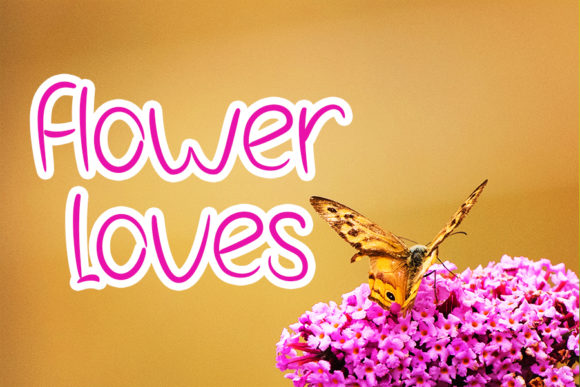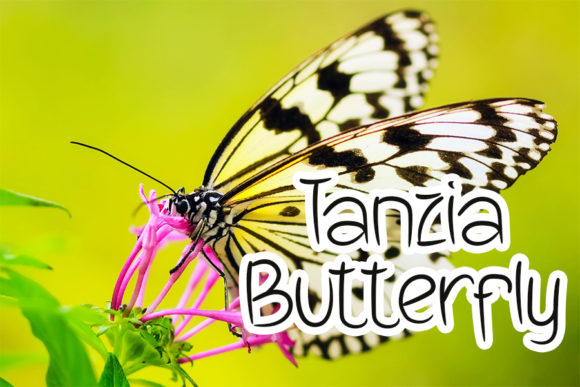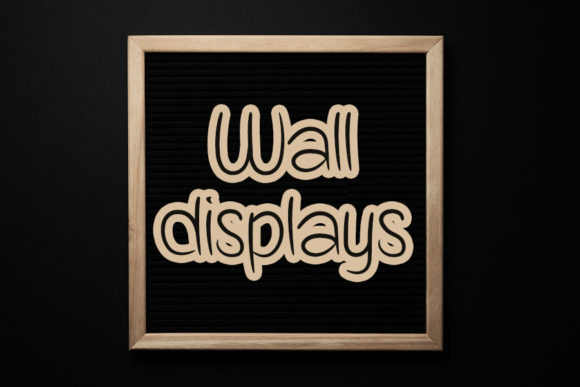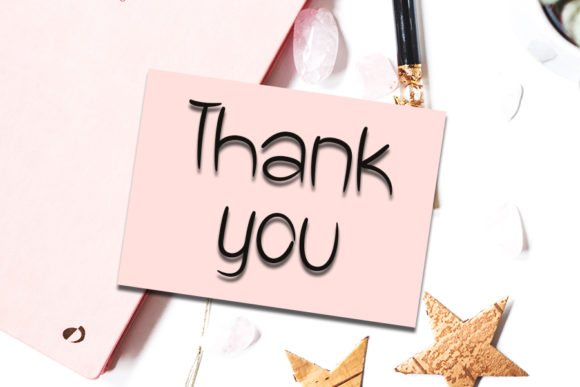
Where Creativity Takes Flight
As a designer, have you ever stared at a blank canvas, waiting for inspiration to strike? It’s that moment when the perfect font can make all the difference, turning a good idea into something truly magical. For me, it’s the moment when I discovered the Butterfly Font – a round lettered and sweet handwritten font that brings a touch of whimsy to any design.
The Butterfly Font is more than just a pretty face; it’s a versatile tool that can elevate a wide range of designs, from wedding invitations to children’s books. Its beautiful and well-balanced characters make it a valuable asset for any designer looking to add a personal touch to their work.
Whether you’re a seasoned pro or just starting out, the Butterfly Font is sure to inspire your creativity and help you bring your most imaginative ideas to life.
Butterfly Font Key Features
- Font Family: Butterfly Font is a unique, hand-drawn sans-serif font.
- Unique Characteristics: Features a distinctive, playful feel with a mix of rounded and angular shapes, adding a touch of whimsy to text-based designs.
- Language Support: Supports a wide range of languages, including Latin, Cyrillic, and Greek, making it a great choice for international designs.
Designer Review: Butterfly Font
As a designer, I’ve had the chance to work with many fonts, and I must say that the Butterfly Font is a unique and captivating one. ✨ Its whimsical feel and intricate details make it perfect for projects that need a touch of elegance and sophistication.
- ✨ Elegant and whimsical feel: The Butterfly Font is perfect for projects that need a touch of elegance and sophistication.
- ✨ Intricate details: The font’s intricate details make it stand out and add a level of sophistication to any design.
- ✨ Versatile: The font can be used for a wide range of projects, from branding to advertising to editorial design.
- ⚠️ Limited legibility: In certain situations, the font’s intricate details can make it difficult to read, especially at smaller sizes.
- ⚠️ Not ideal for body text: The font is best used for headlines and titles, as it can be overwhelming for large blocks of text.
Overall, I think the Butterfly Font is a beautiful and unique addition to any designer’s toolkit. While it may have some limitations, its elegance and sophistication make it perfect for the right projects. With a little creativity and restraint, this font can be used to create truly stunning designs.
For the most effective use of the Butterfly Font, use it for titles, headings, and other decorative text.
Consider pairing the font with a sans-serif font for body text to create a visually appealing contrast.
Common use cases include wedding invitations, baby shower invitations, and other creative projects where a whimsical touch is desired.